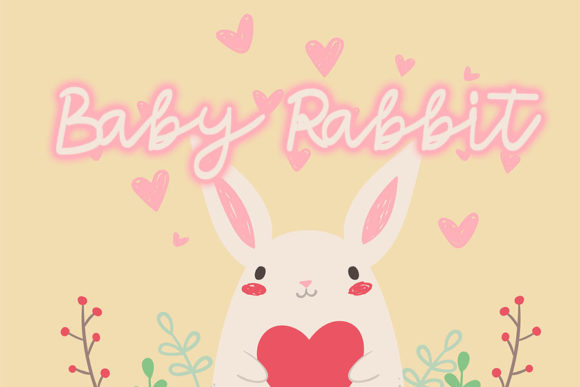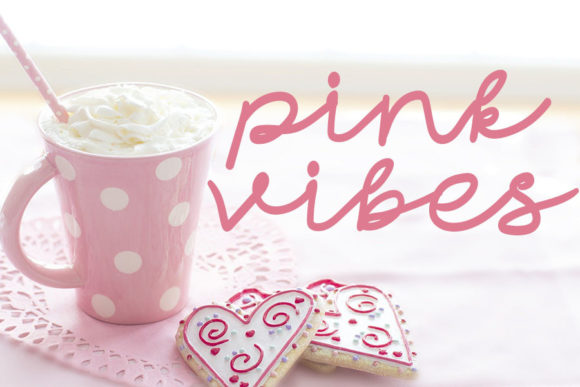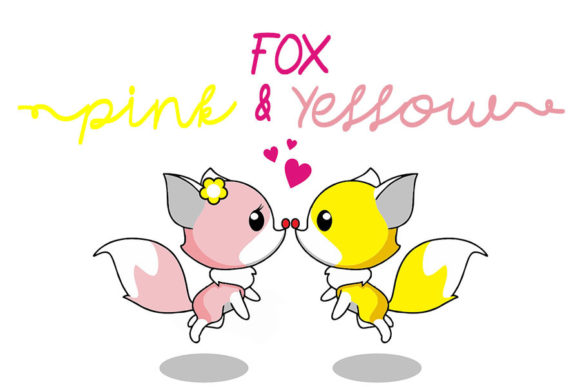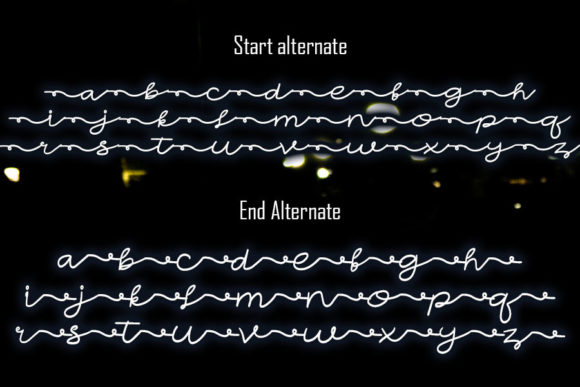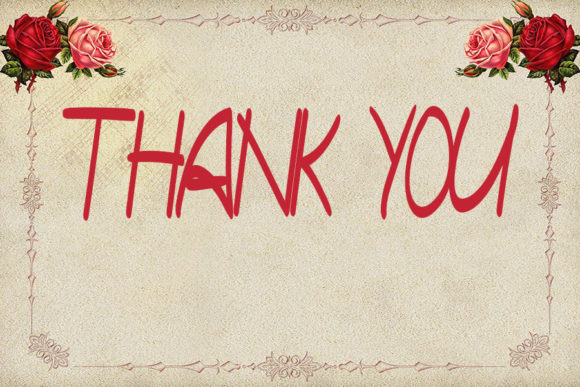
Sweet Potato Font
Sweet Potato is a delightful and sweet script font that adds a touch of elegance and charm to your designs. With its delicate and flowing letterforms, this font exudes warmth, romance, and a sense of joy. It is the perfect choice for bringing a touch of whimsy and beauty to your project ideas.
The flowing nature of Sweet Potato’s letterforms gives your text a sense of movement and grace. Each character is carefully crafted to create a harmonious and pleasing aesthetic. Whether you’re designing wedding invitations, greeting cards, logos, or any other project that requires a romantic and elegant touch, Sweet Potato will elevate your design to a new level of beauty.
One of the standout features of Sweet Potato is its PUA encoding, which allows you to access all of the glyphs and swashes with ease. This means you have a wide variety of options to customize and enhance your text. From alternate letterforms to decorative swashes, you can easily add flair and personality to your designs, making them truly unique and captivating.
The warm and jolly nature of Sweet Potato makes it a versatile font for various project ideas. Its sweet and romantic style lends itself well to wedding and event-related designs, while its flowing and delicate letterforms can also work beautifully in branding, packaging, social media graphics, and more. It brings a touch of joy and elegance to any design you create.
In summary, Sweet Potato is a delicate and sweet script font that adds warmth, romance, and a sense of joy to your designs. Its flowing and elegant letterforms, combined with its PUA encoding, give you the freedom to customize and enhance your text with ease. Whether you’re creating wedding invitations, greeting cards, or other design projects, Sweet Potato will transform your ideas into captivating works of art.